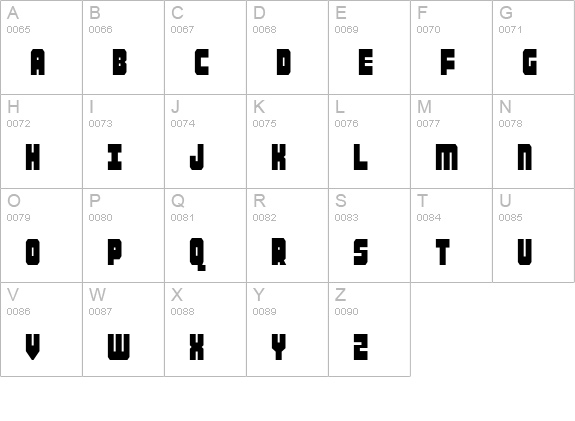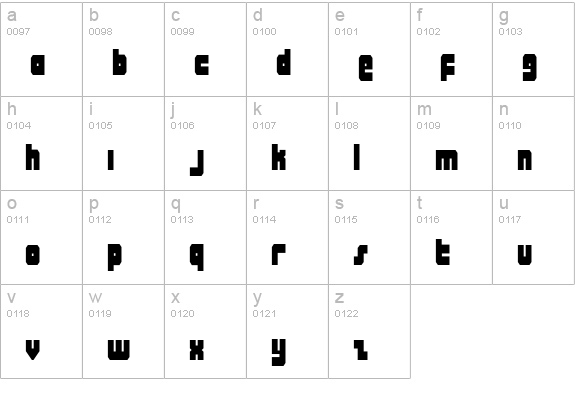
Alpha Taurus Condensed is a distinctive, condensed-width variant in the Alpha typeface family \xE2\x80\x94 well suited to design and typography projects.
Alpha Taurus Condensed is a sleek and modern font that exudes sophistication and elegance. With its clean lines and sharp edges, this typeface is perfect for creating eye-catching designs that demand attention. The condensed style adds a touch of professionalism, making it ideal for a wide range of projects, from branding to advertising. What sets Alpha Taurus Condensed apart is not just its aesthetic appeal, but also its versatility. Whether you're designing a logo, crafting a marketing campaign, or working on a website, this font will elevate your work to the next level. Its legibility and readability ensure that your message will be conveyed clearly and effectively. And the best part? Alpha Taurus Condensed is available for free download at FontsMarket.com. That's right – you can get your hands on this stunning font without spending a dime. So why wait? Download Alpha Taurus Condensed today and take your designs to new heights of sophistication and style.